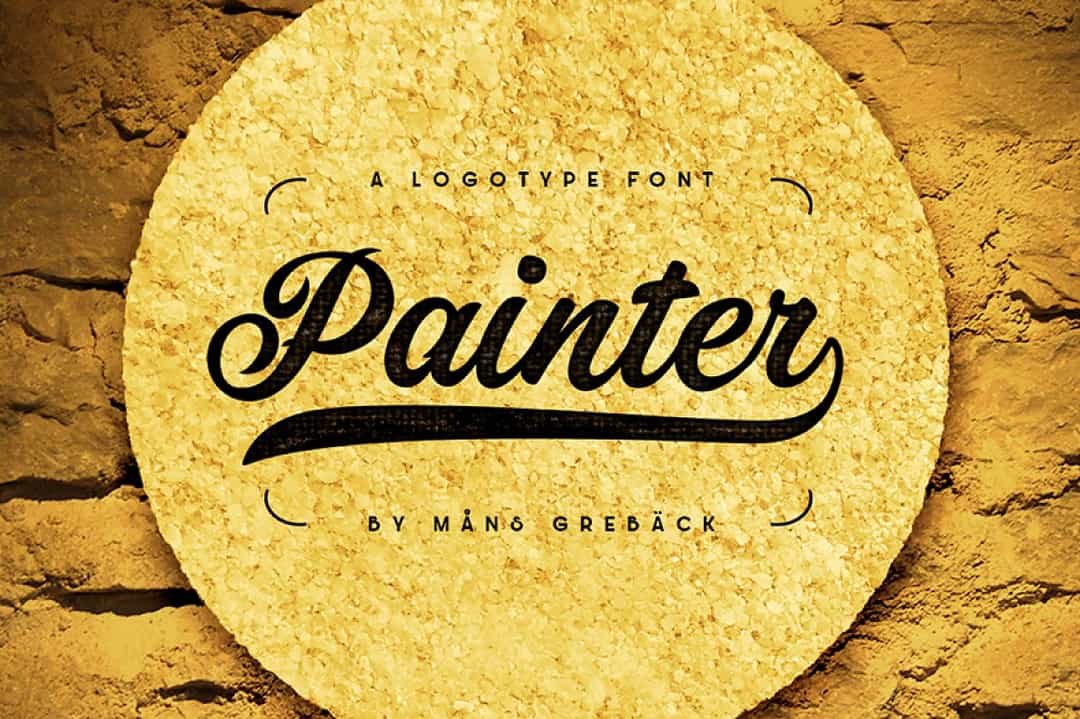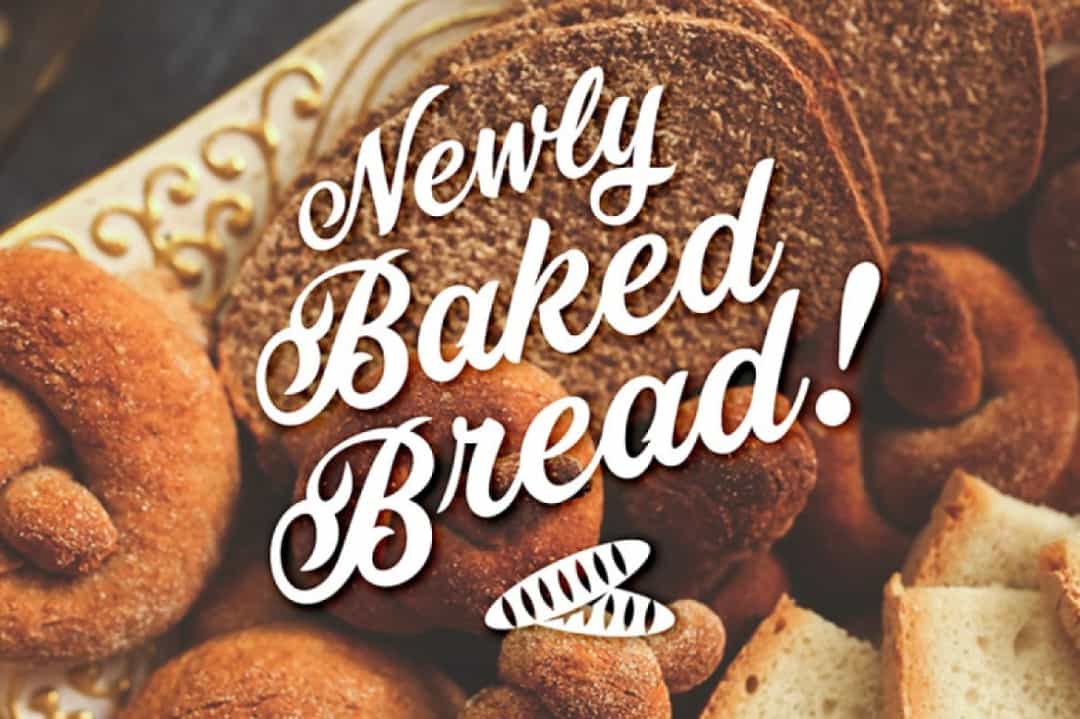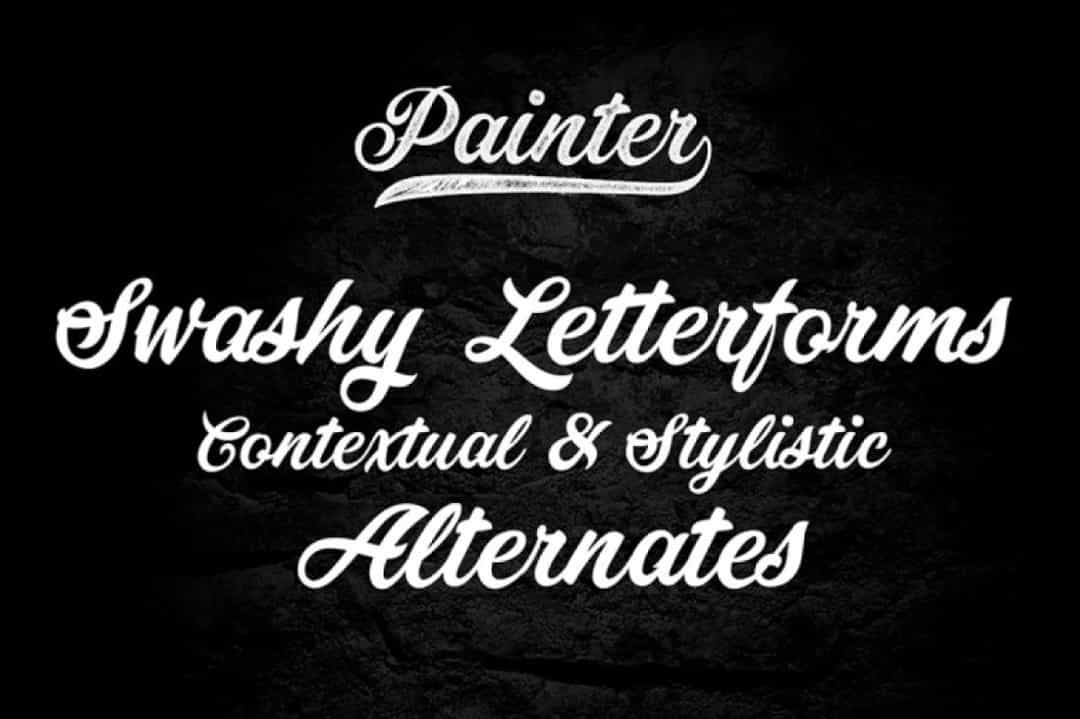
Painter is a script font characterized by fluid brush strokes offering a clean and detailed design with numerous features. It includes stylistic alternates, supports languages features ligatures and offers an array of special characters. Designed by Måns Grebäck this typeface is ideal for creating logos and graphics with a touch.